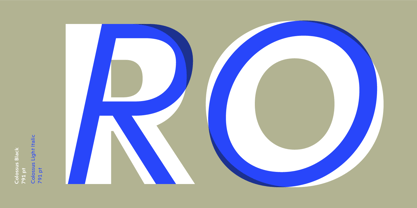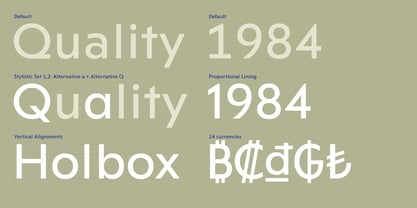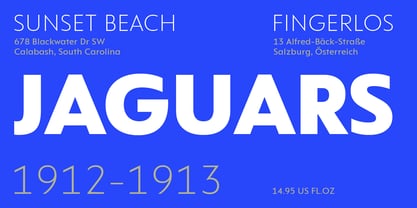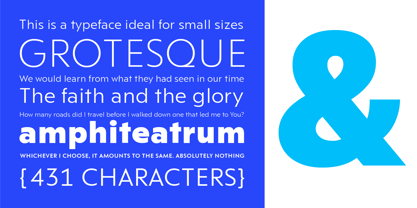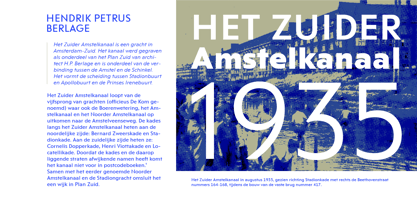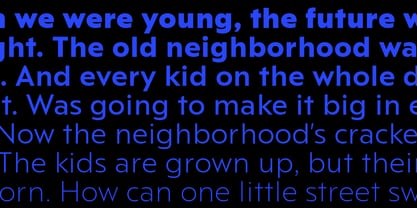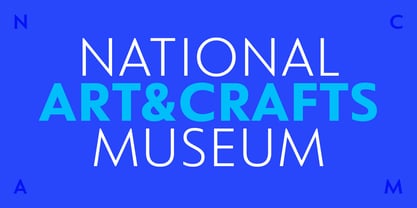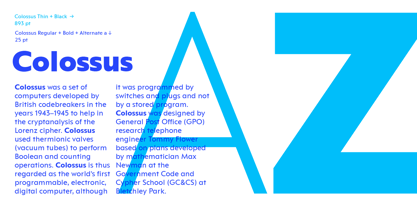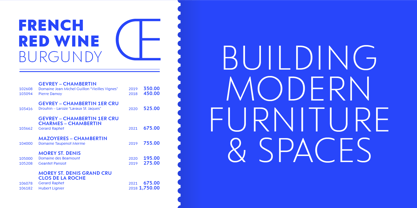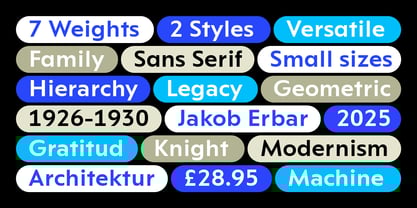
Colossus
The Colossus Font Family was designed by Elí Castellanos, Antonio Mejía and published by Lechuga Type. Colossus contains 14 styles and family package options.
Colossus, a versatile geometric sans serif font. It offers seven weights, along with matching italics, this makes it highly adaptable for a variety of design needs. Its application in corporate projects and logos is a great fit due to its clean and geometric aesthetic. The wide range of weights also provides flexibility to get the right visual texture for different parts of the design, whether you're working on headlines or body text.